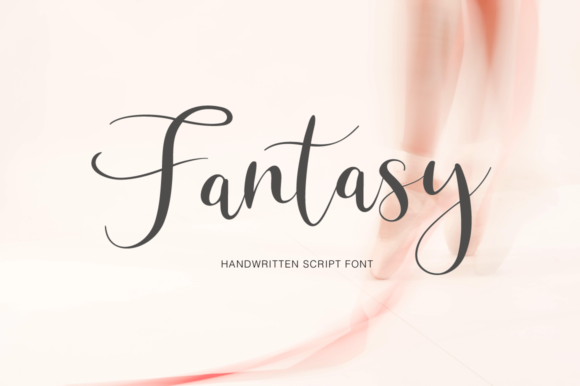
Get Lost in the Whimsy of Fantasy Font
Have you ever found yourself scribbling down ideas in a notebook, watching the words flow effortlessly onto the page? It’s that magical moment when creativity takes over, and the world seems to slow down. For designers, it’s the spark that sets the imagination ablaze. And what better way to capture that essence than with a beautiful, handwritten script font?
Enter Fantasy Font, a stunning script font that adds a touch of elegance and femininity to any design. Its unique letters dance across the page, weaving a spell of whimsy and wonder. Whether you’re crafting a wedding invitation, a children’s book, or a branding campaign, Fantasy Font is the perfect tool to bring your vision to life.
For designers, Fantasy Font is a valuable asset that opens up endless possibilities. Its versatility makes it a go-to choice for a wide range of projects, from fine art to commercial design. With Fantasy Font, the boundaries of creativity are stretched, and the imagination knows no limits.
Fantasy Font Key Features
- Unique Characteristics: The font features intricate, hand-drawn designs and ornate details, making it suitable for fantasy, medieval, and mystical themes.
Designer Review: Fantasy Font
I recently had the chance to play around with the Fantasy Font, and I’m excited to share my honest thoughts.
- The Fantasy Font has a unique, whimsical feel that’s perfect for fantasy and sci-fi projects.
- The bold lines and rounded edges give it a friendly, approachable vibe.
- The font is highly customizable, with a wide range of style options and sizes.
- The font supports a wide range of languages, making it a great choice for international projects.
- The font can feel a bit cluttered at larger sizes, which may be a problem for certain design applications.
- The font lacks a bold italic style, which may limit its use in certain situations.
- The font may not be the best choice for projects that require a more minimalist or modern aesthetic.
The Fantasy Font is a great choice for designers who are looking to add a touch of magic to their projects. While it has some limitations, its unique style and high level of customization make it a valuable addition to any design arsenal.
Tips for Getting the Most Out of Fantasy Font
To get the most out of Fantasy Font, try the following:
- Combine Fantasy Font with other creative elements, such as illustrations or graphics, to create a unique look.
- Use Fantasy Font to add a touch of whimsy and fantasy to your designs.
Fantasy Font is commonly used in the following contexts:
- Designing fantasy-themed
Alternatives to Fantasy Font for Designers
Carolyna Pro is a modern script font that mimics handwritten text. It’s ideal for use in branding, packaging, and invitations where a personal touch is required. Compared to Fantasy Font, Carolyna Pro has a more elegant and sophisticated feel, making it suitable for high-end designs.
Great Vibes is a cursive script font that exudes a sense of relaxation and casualness. It’s perfect for use in advertising, social media, and blogs where a friendly tone is desired. While Fantasy Font has a more playful and whimsical feel, Great Vibes is more laid-back and easy-going.